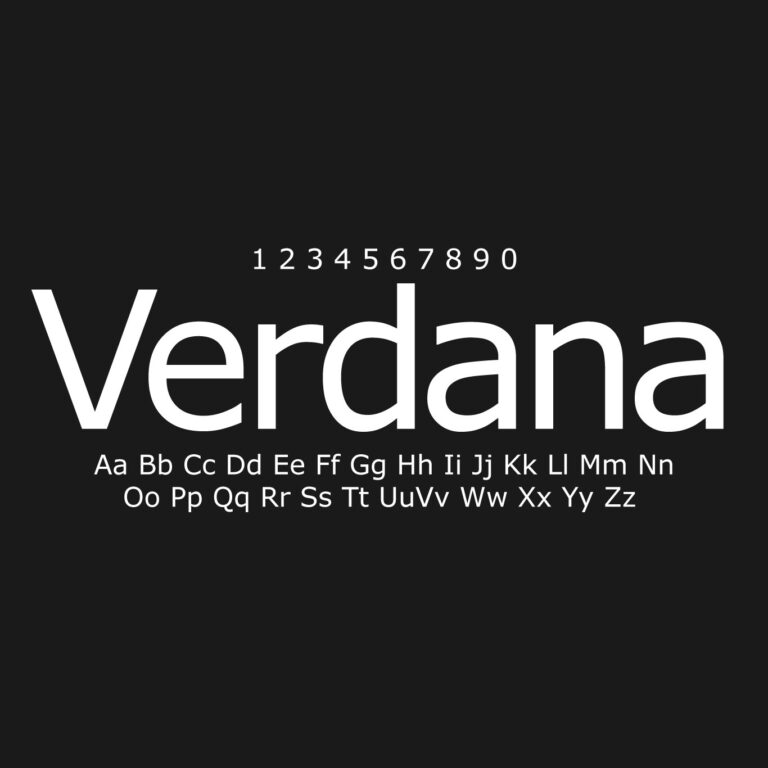
Verdana was named after greenery and a designer’s daughter, built pixel by pixel for the fuzzy monitors of the 1990s — and thirteen years later, it triggered one of the biggest typography controversies in corporate history. This download includes the classic 4-style family: Regular, Italic, Bold, and Bold Italic.
The Sans Half of a Famous Pair
In the mid-1990s, Virginia Howlett of Microsoft’s typography group recognized that the company needed fonts actually designed for screens, and the commission went to Matthew Carter — with hand-hinting by Tom Rickner at Monotype. The result was a matched pair: Verdana, the humanist sans-serif, and Georgia, its serif sibling. The name blends “verdant,” a nod to the green landscape around Microsoft’s Seattle-area home, with “Ana,” after Howlett’s eldest daughter. Released on July 8, 1996, and bundled into Windows, Office, and Internet Explorer, Verdana quickly became one of the most-seen typefaces on Earth.
Carter designed for the reality of the era’s screens: pixels were either on or off, nothing in between. Consequently, every decision favors clarity at tiny sizes. The x-height is huge, the proportions wide, the spacing deliberately loose — Carter has said spacing was where he worked hardest. Similar characters were forcibly differentiated: the digit “1” got a horizontal base and an upper hook so it could never be confused with a lowercase “l” or capital “I.” Even the unusually heavy bold has a technical reason — at mid-90s resolutions, a one-pixel stem could only jump to two.
Verdanagate
In 2009, IKEA swapped its longtime brand typeface Futura for Verdana, citing brand unity between print and web — plus, frankly, cheaper licensing. The design world erupted. The New York Times called the change “a slap at the principles of design,” Time and the Associated Press covered the backlash, and an online petition demanded a reversal. The episode, inevitably dubbed “Verdanagate,” turned a humble system font into a symbol of the web’s typographic homogeneity. IKEA held its ground for a decade before moving on to a customized Noto Sans in 2019. In hindsight, the outrage proved the point of Verdana’s design: it was never meant to be a brand voice — it was meant to disappear into readability.
Using Verdana Today
Verdana remains one of the safest choices alive for small-size screen text: interfaces, forms, footnotes, data tables, and emails, where its generous spacing keeps every character distinct. It’s preinstalled almost everywhere, making it a zero-load-time web font in CSS. Two cautions come with it. First, its wide proportions eat horizontal space — headlines set in Verdana look bulky at large sizes. Second, on today’s high-resolution screens its pixel-era compromises matter less, so modern UI fonts like Inter offer similar clarity with tighter economy. For its serif partner in long-form reading, see our Georgia page — the two were literally designed to work together.
Tahoma is Verdana’s closest relative — Carter drew them from shared roots, with Tahoma running narrower and tighter. Georgia is the designed-together serif companion. For open-source substitutes, DejaVu Sans (built on Verdana’s sibling Bitstream Vera) and Open Sans cover similar humanist ground, while Inter is the modern screen-first successor in spirit. Frutiger, meanwhile, is the classic print-era humanist that Verdana’s letterforms most resemble.